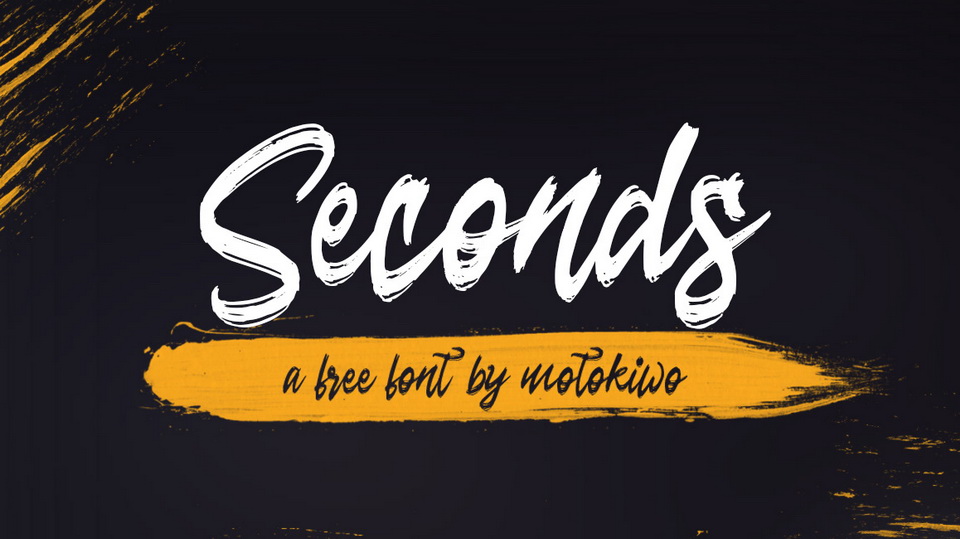
Download Seconds font, an eye-catching hand lettered rough brush script. With its casual look Seconds font is perfect for posters, covers, headlines, ads, prints and more.
Designer: Motokiwo